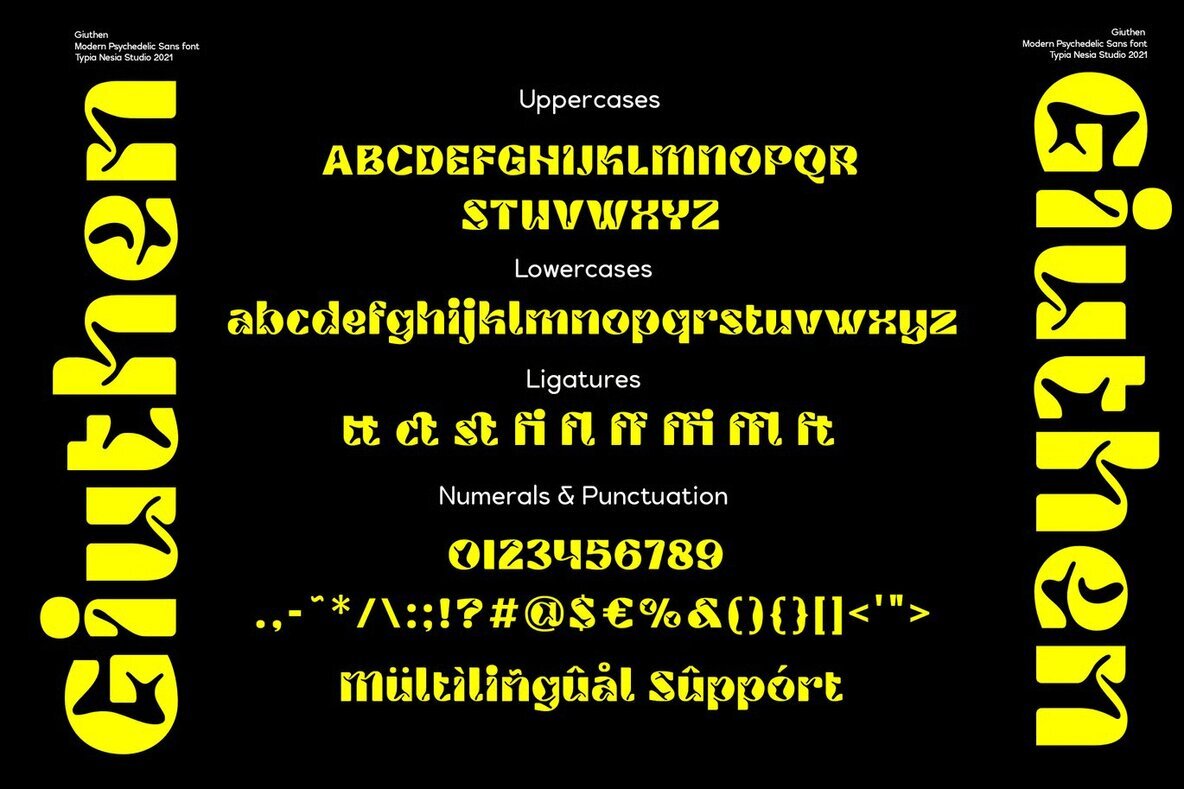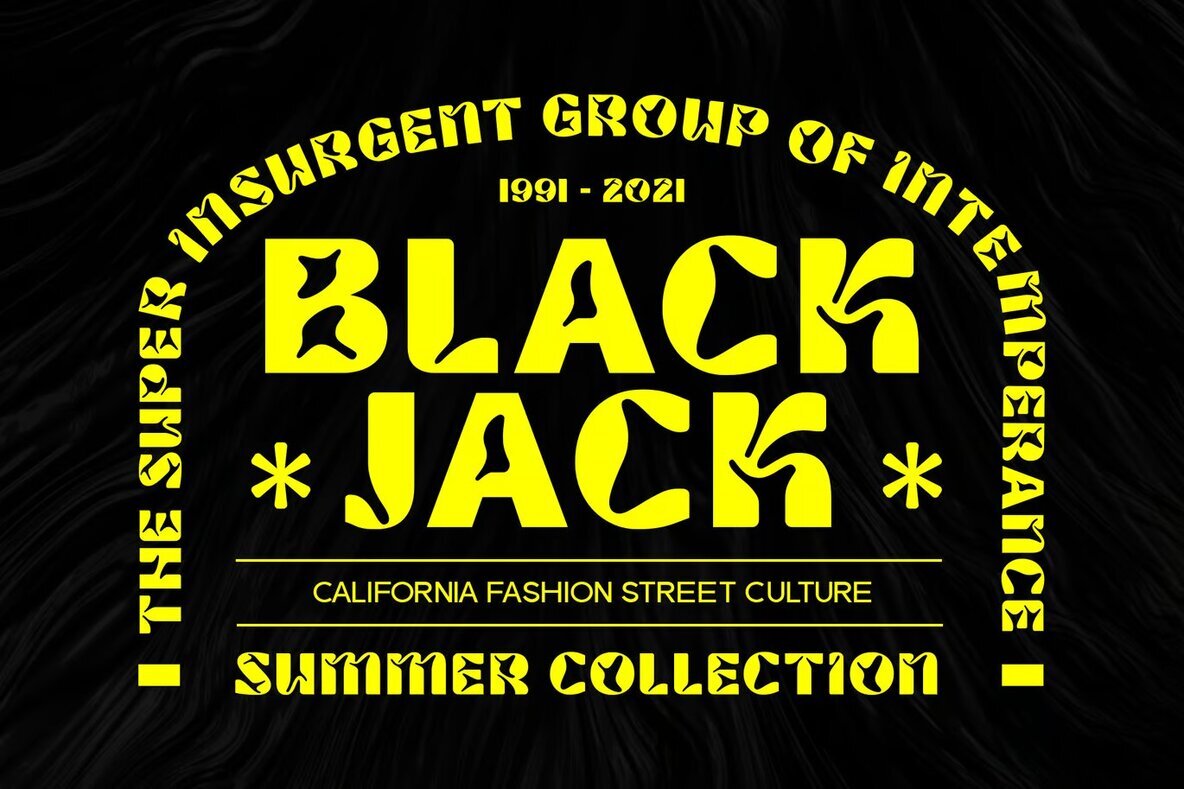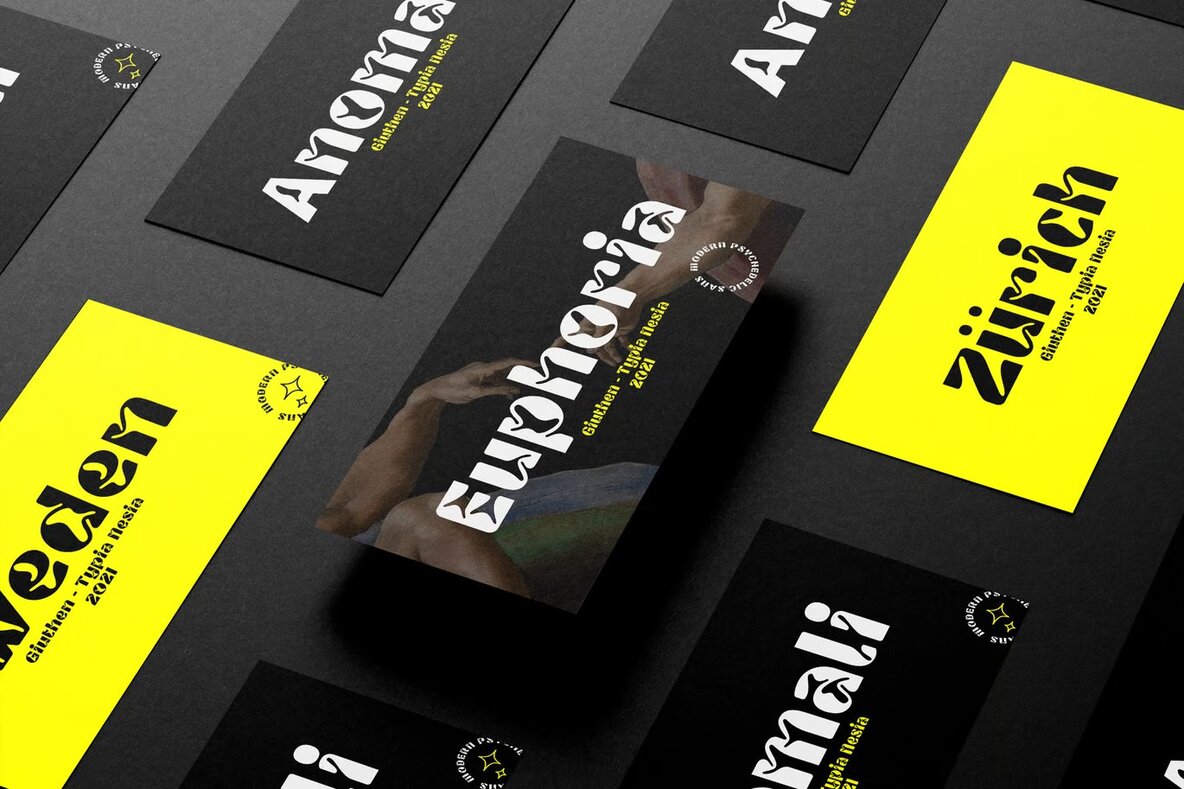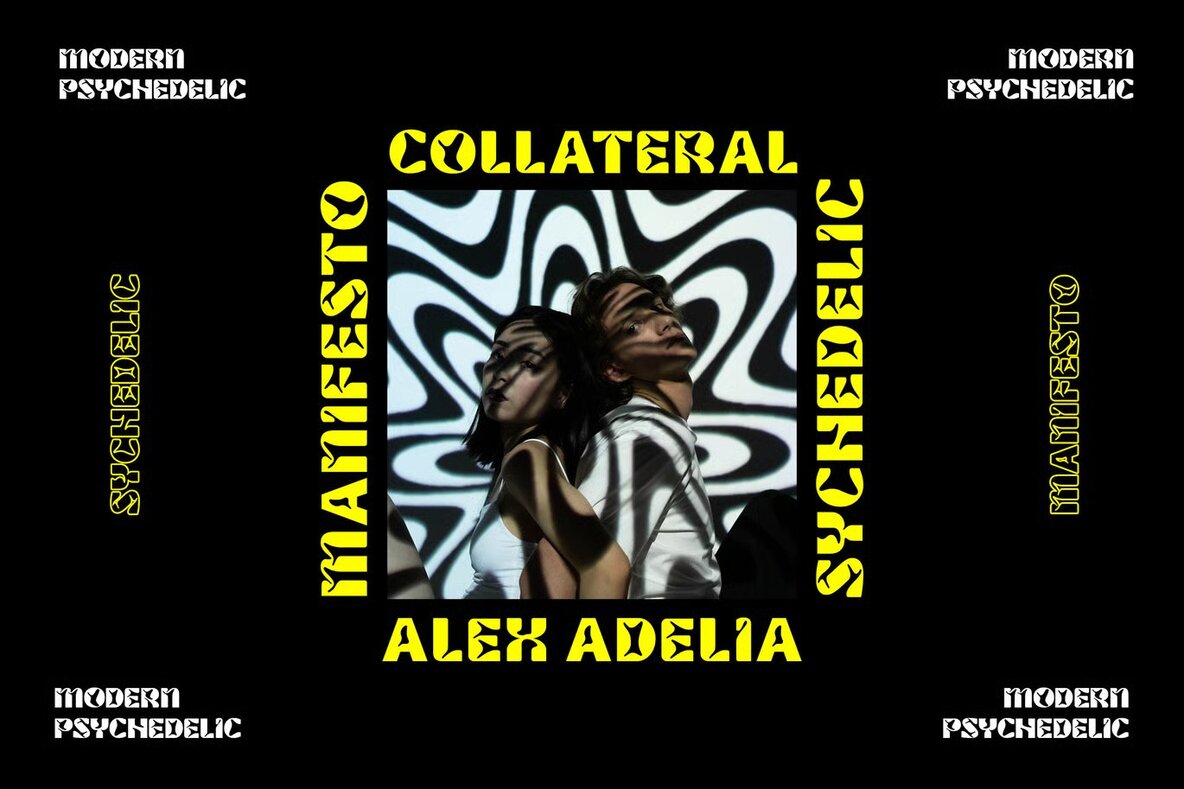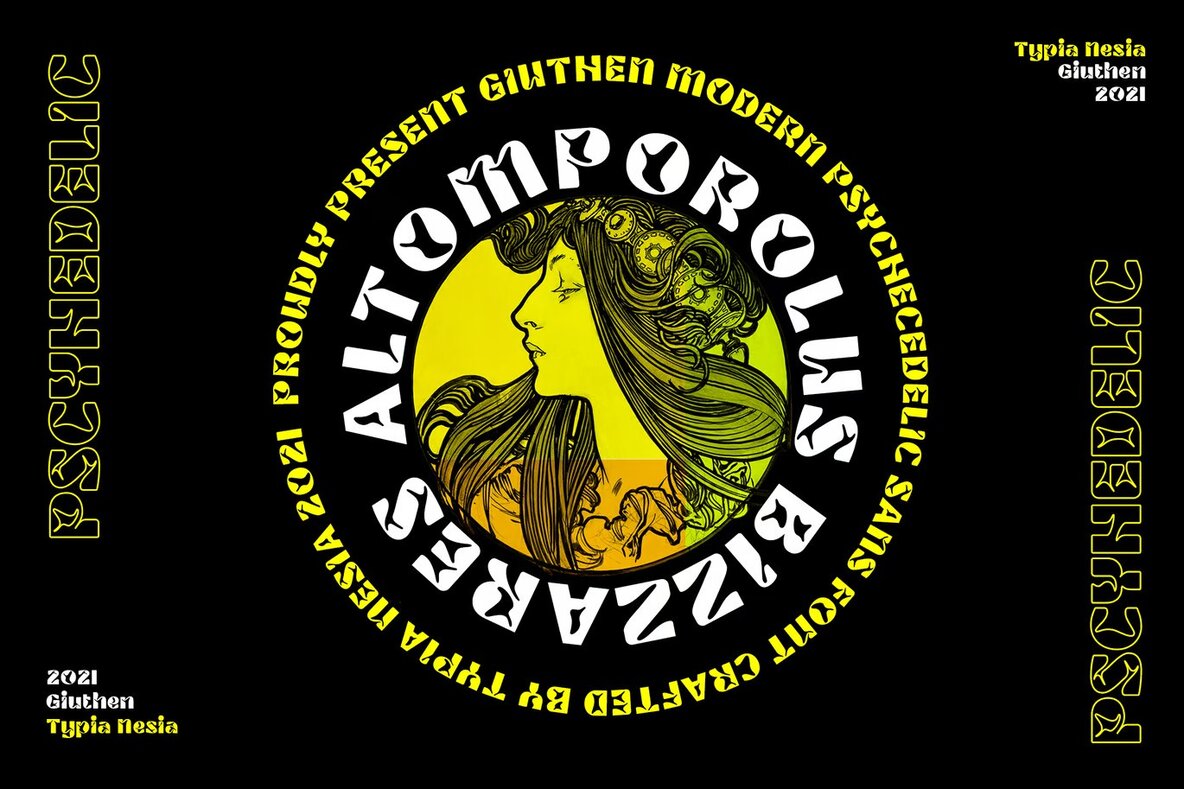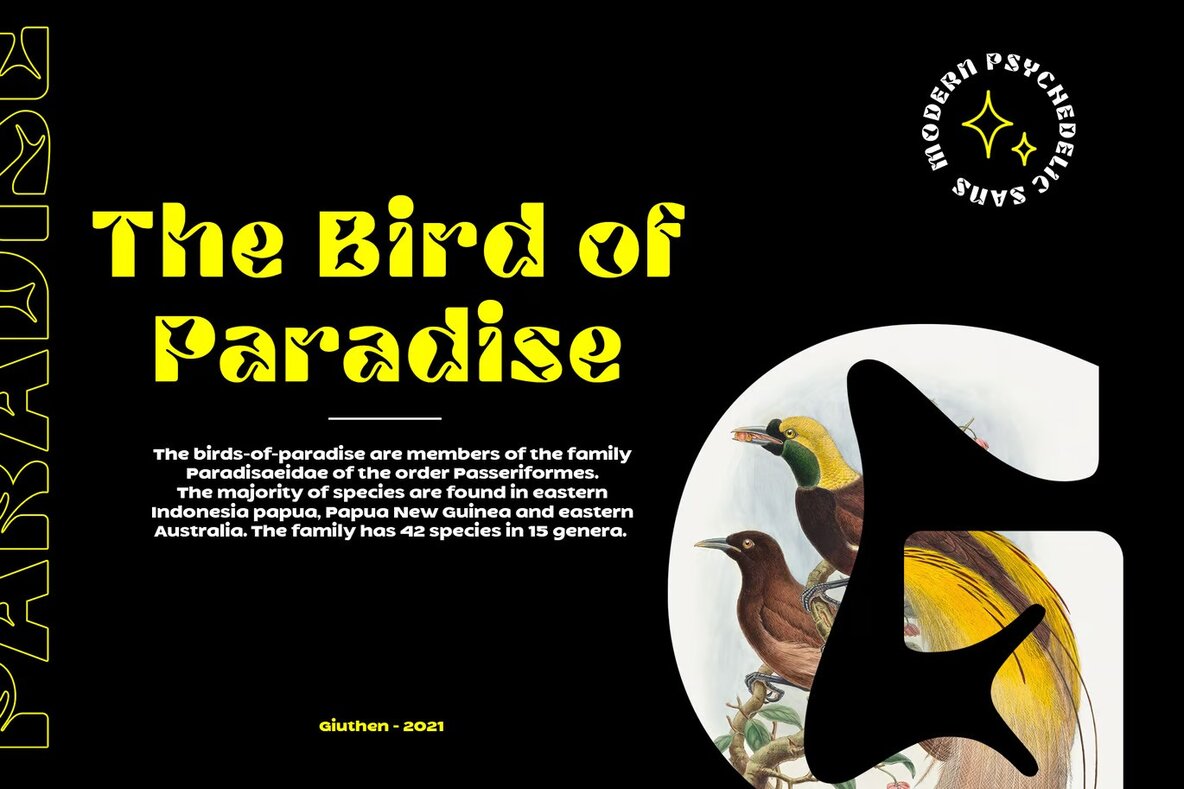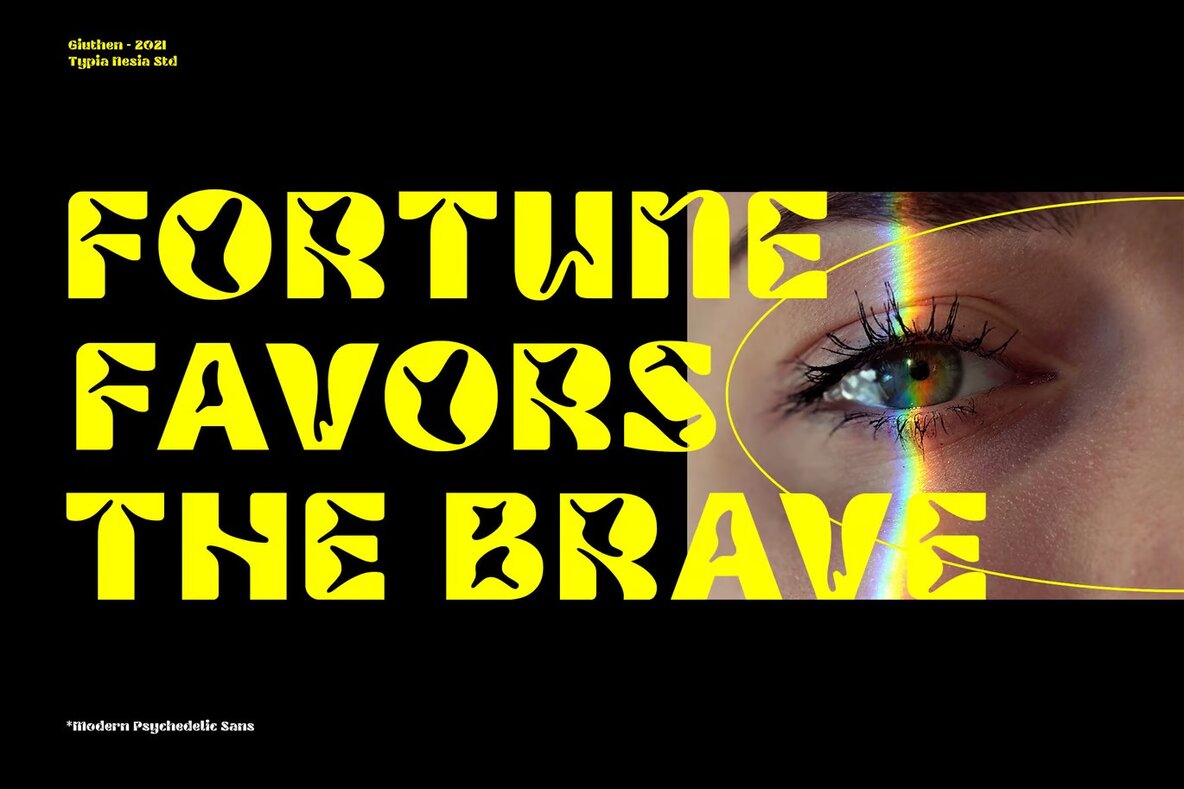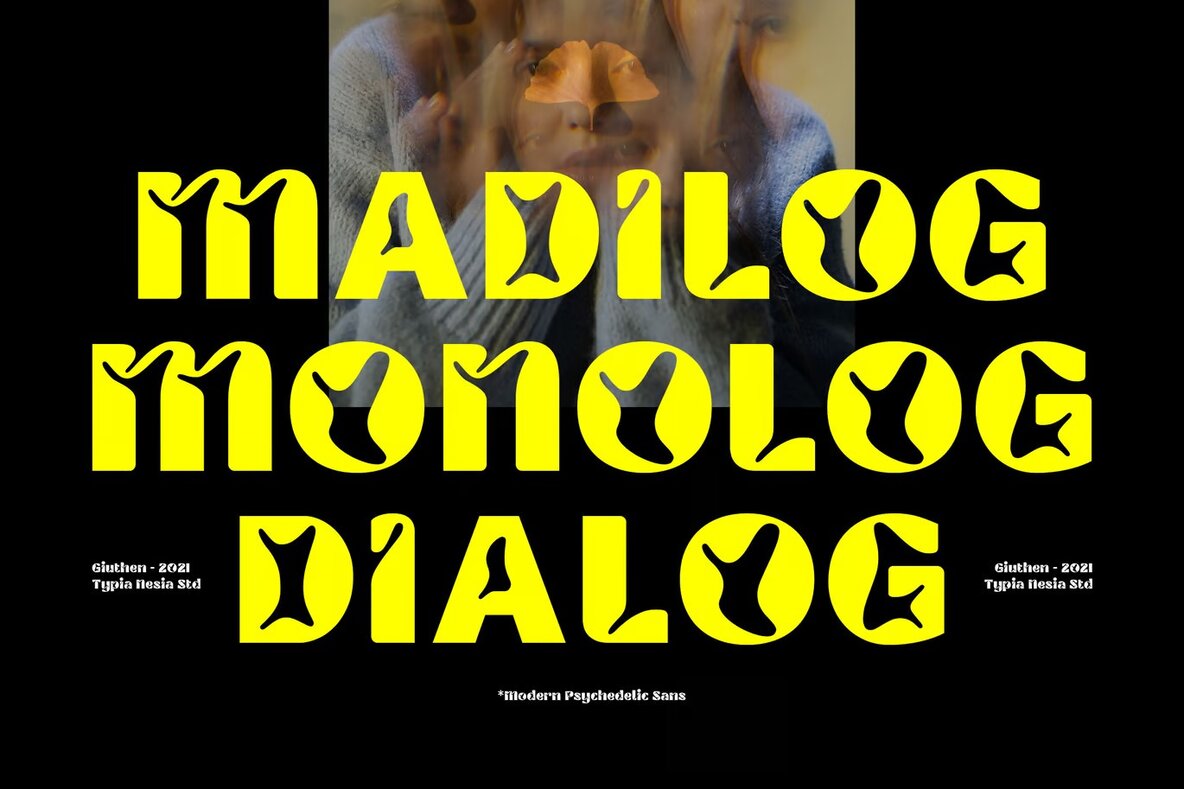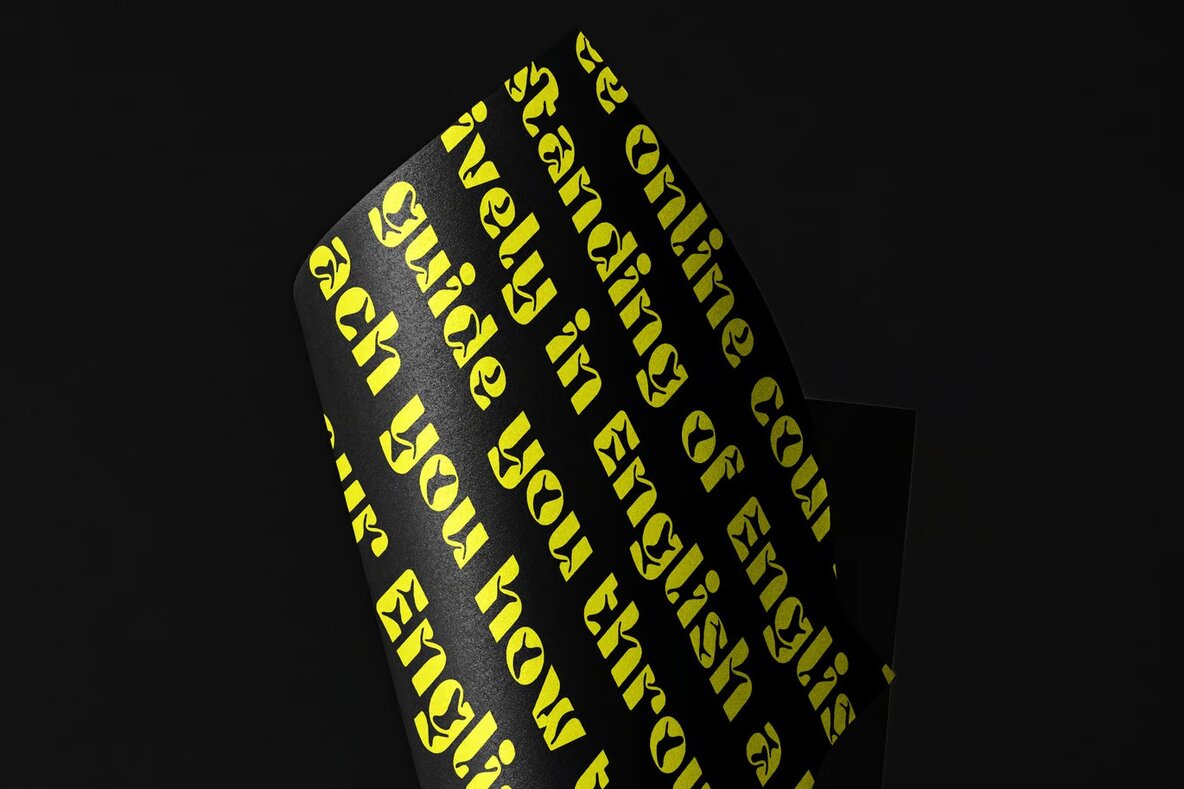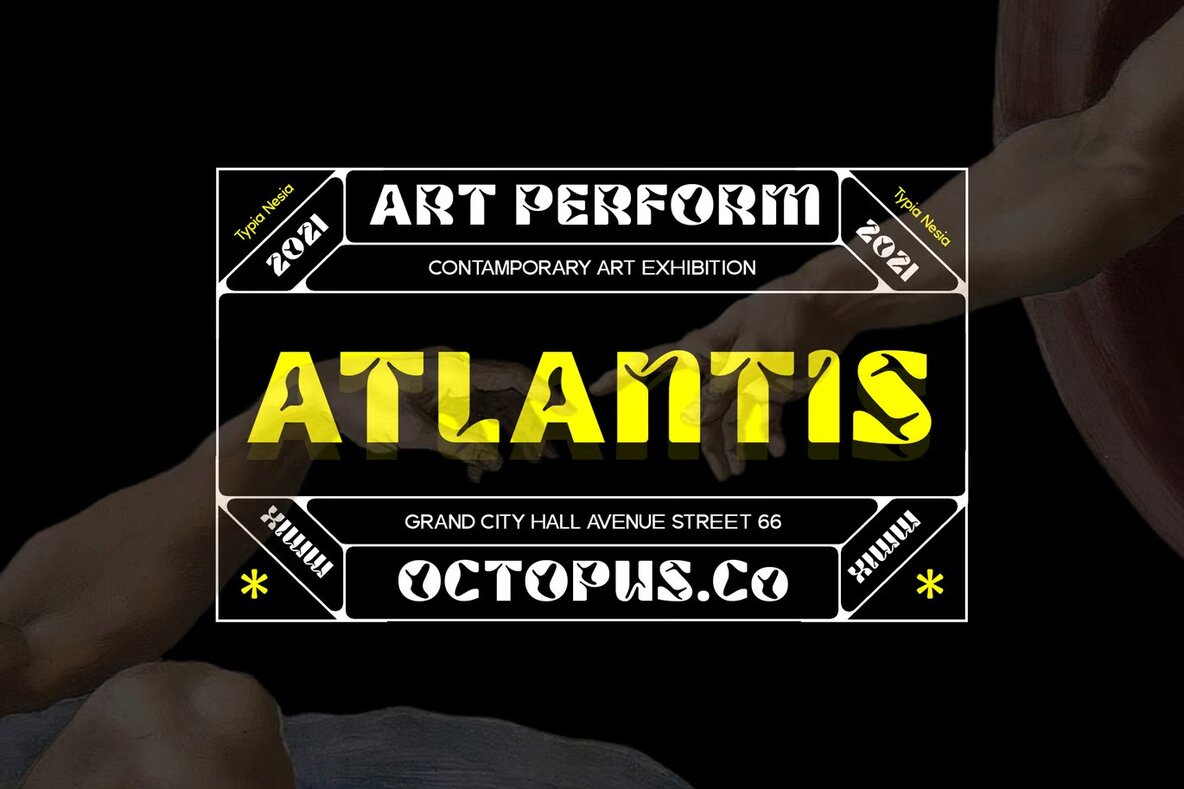
Giuthen Font
Giuthen Regular
Giuthen Sans Serif Font is an innovative choice for a range of creative projects seeking a modern yet distinctive appearance. Its psychedelic and brutalist design makes it the ideal typeface for logo branding, editorial work, and both vintage and retro poster designs. Perfect for fashion and sports materials, Giuthen also excels in game design and is well-suited for startups and music-related projects. Its expressive style adds a unique touch to website and app design, making it a versatile option for UI and UX initiatives.
Ideal for modern advertising, this font can enhance magazine layouts, book covers, and special event materials, lending a bold and yet sophisticated edge. Its adaptability to various themes and aesthetics makes Giuthen a valuable asset for designers aiming to capture attention and convey an engaging narrative. The font’s unique character set supports diverse design needs, ensuring each project stands out with creativity and clarity.